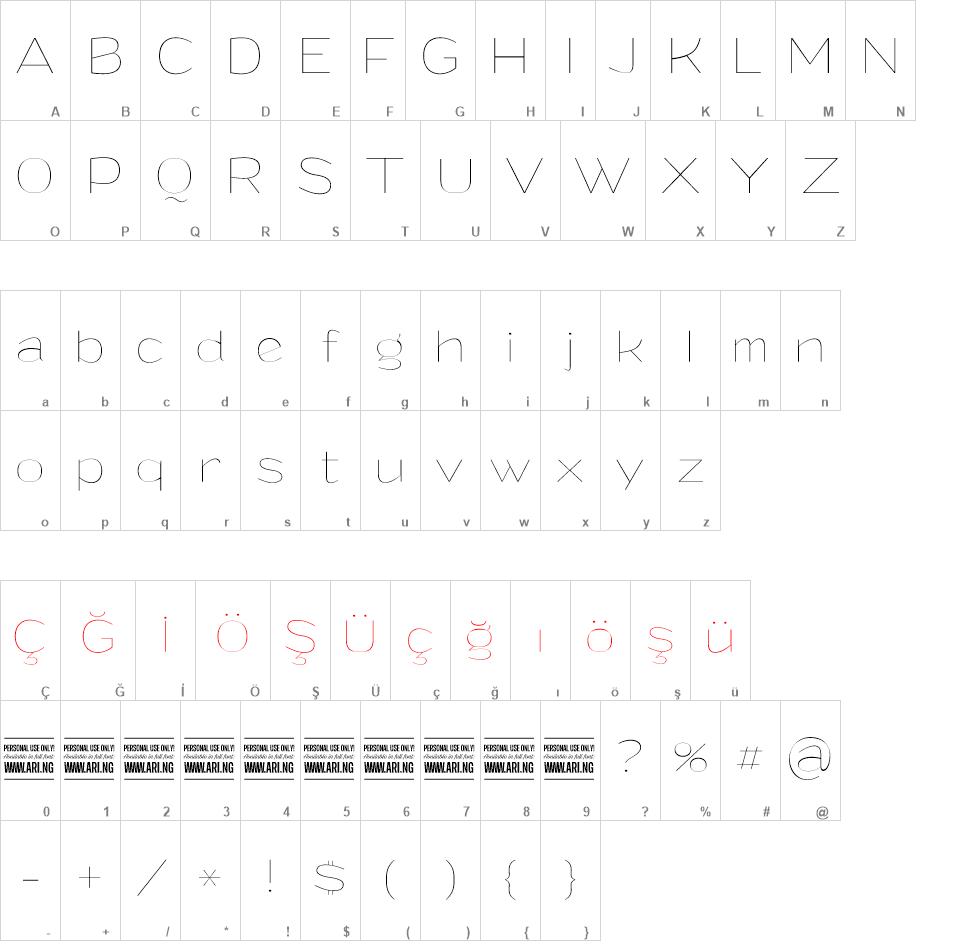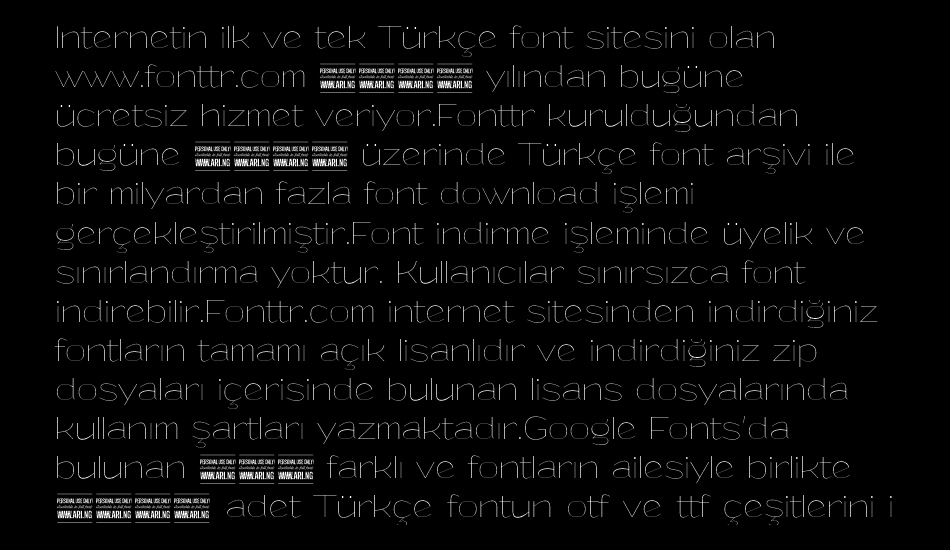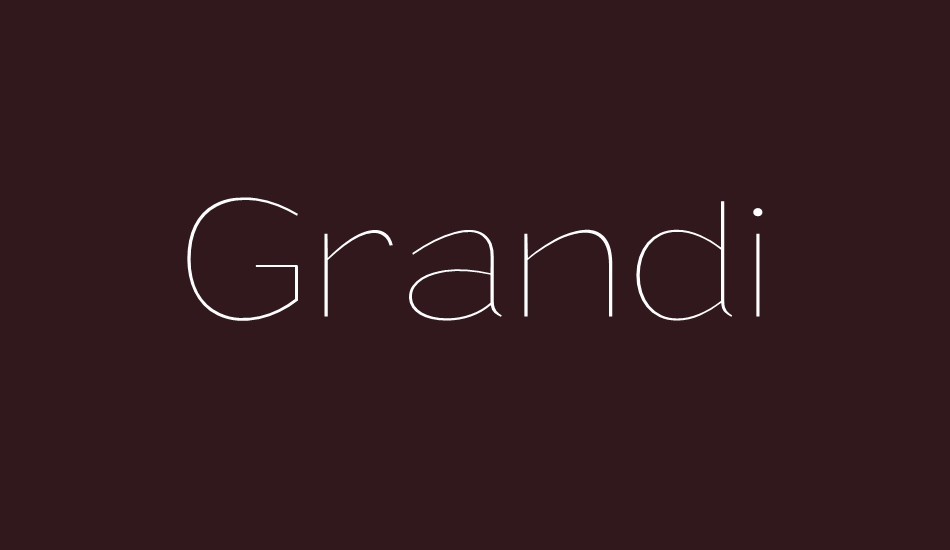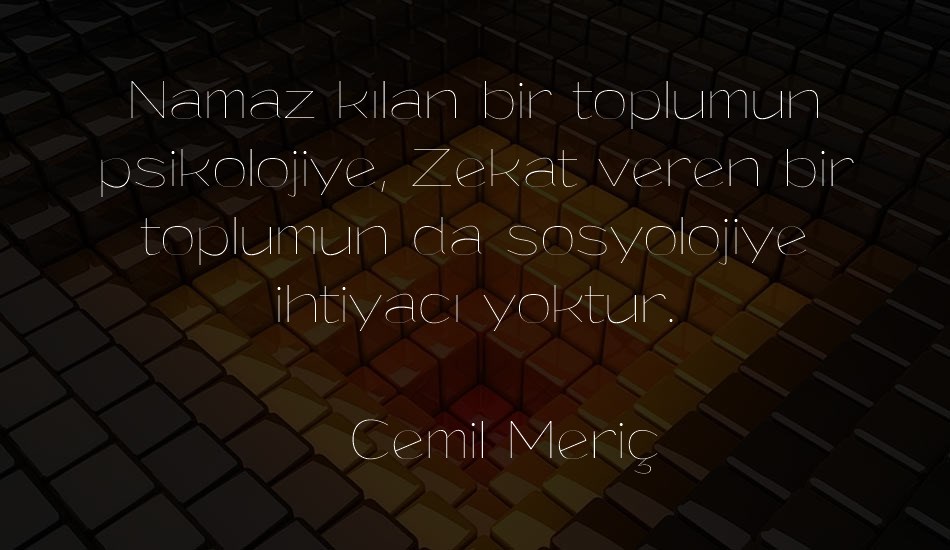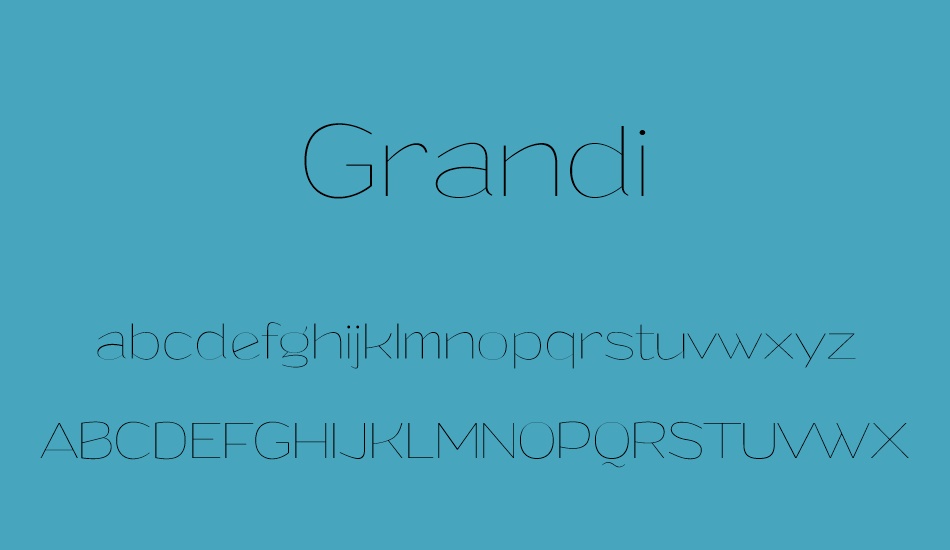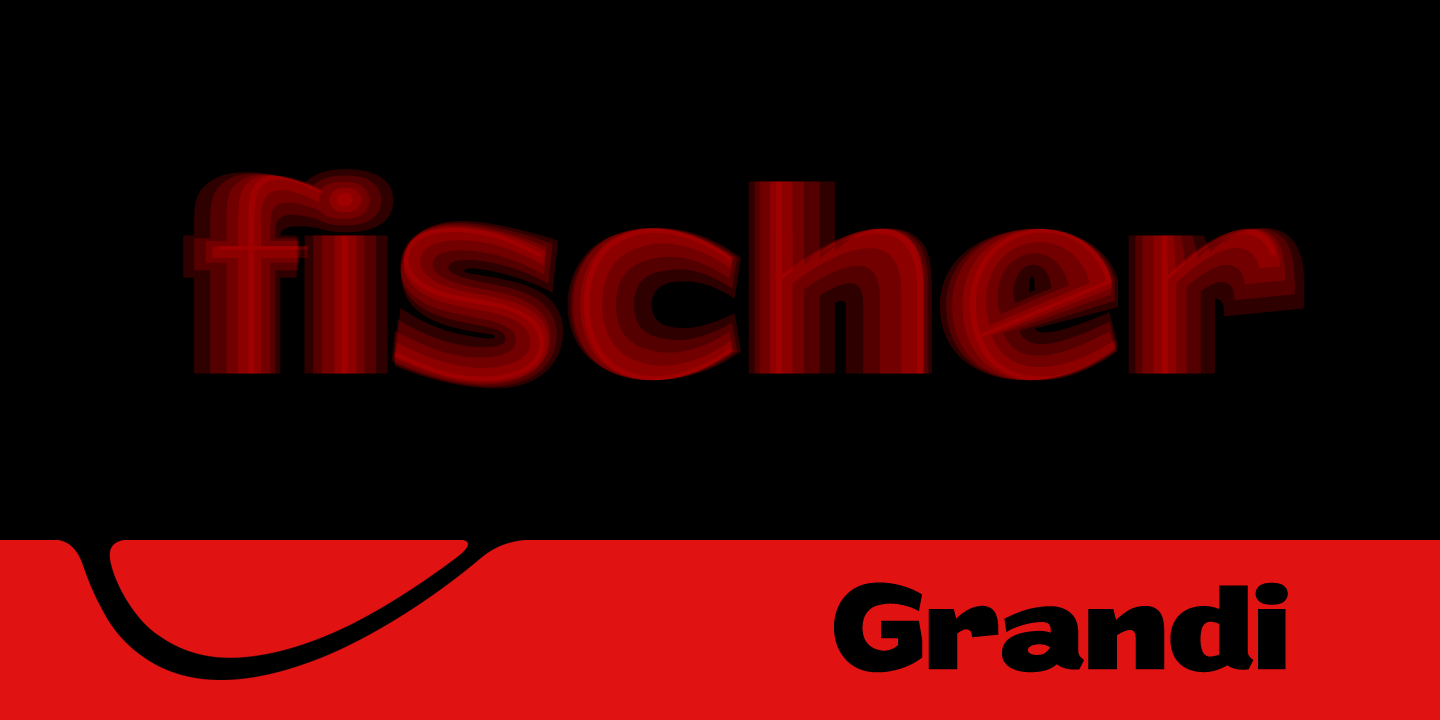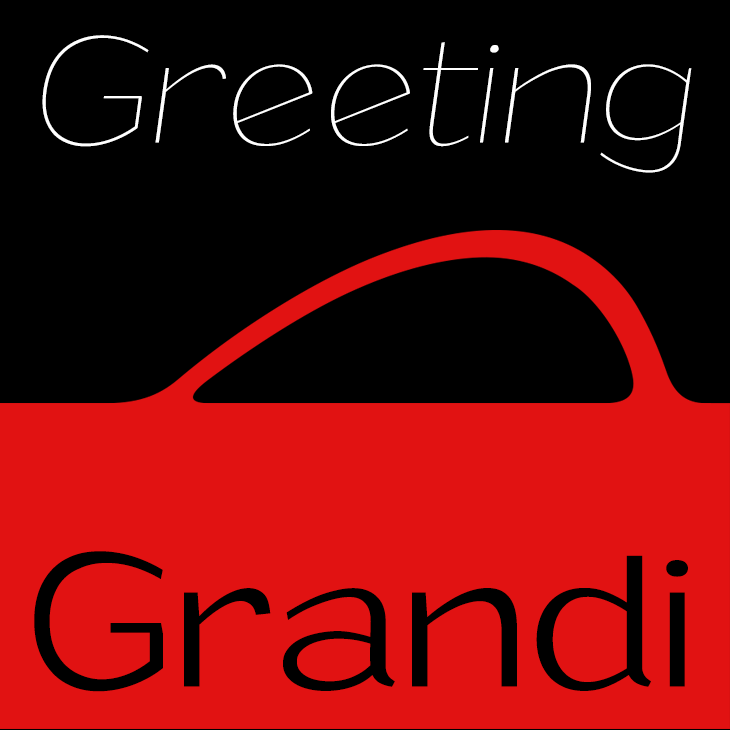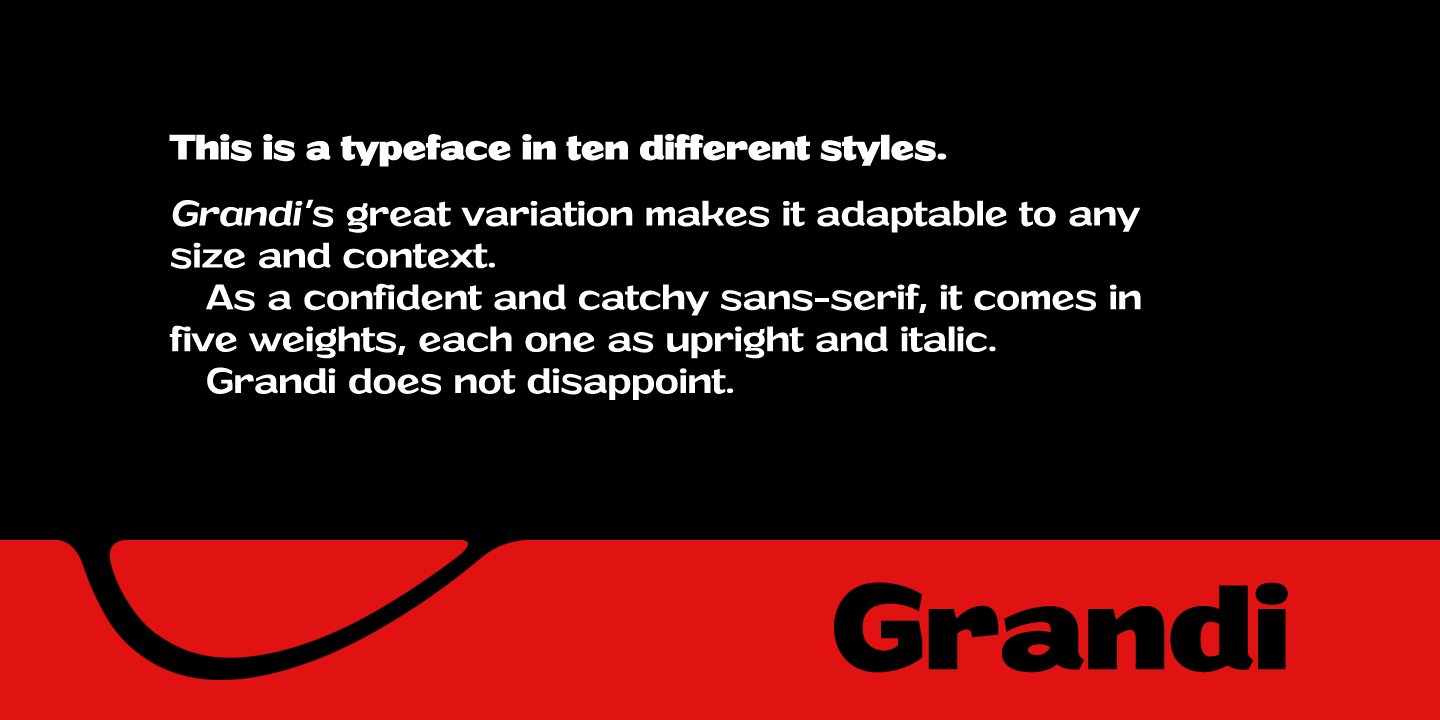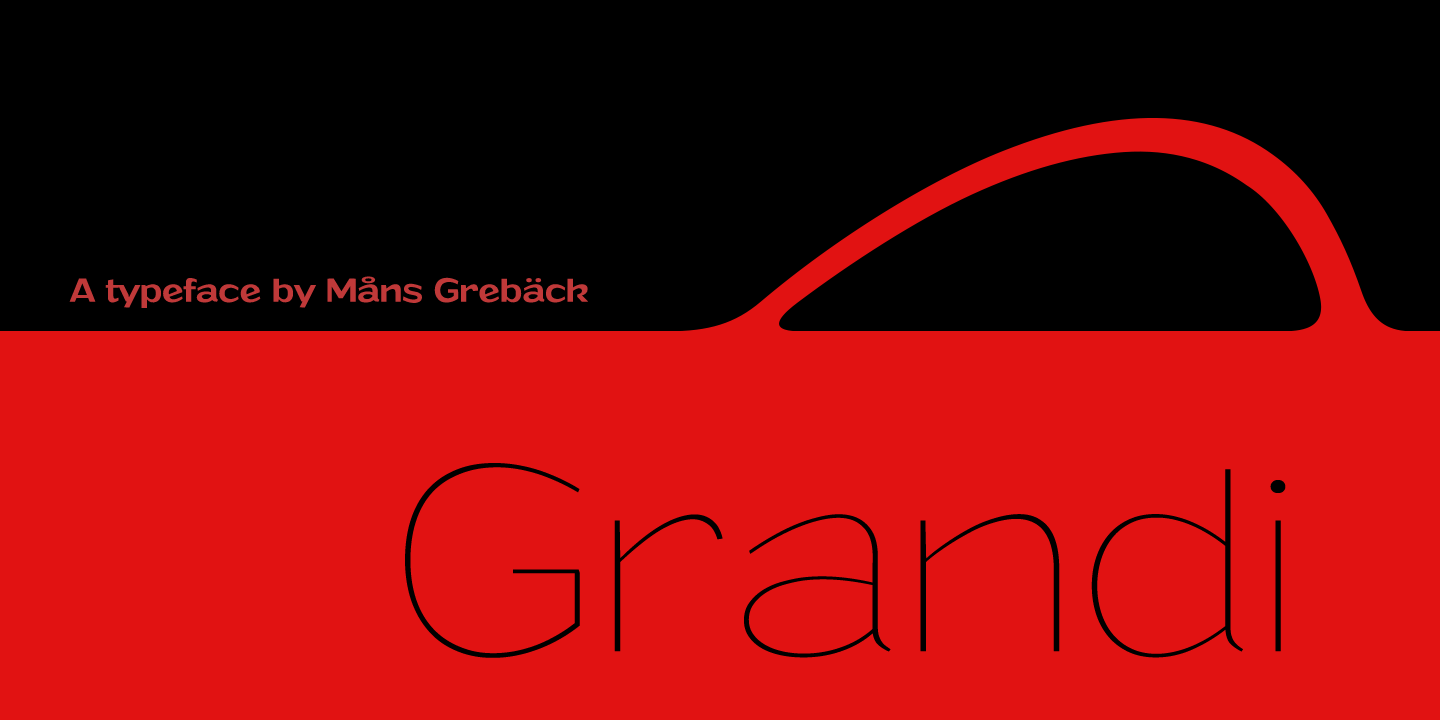
Grandi font
Grandi Font
Grandi is a sans-serif in ten different styles.
Carefully designed by M?ns Greb?ck, this typeface's great variation makes it adaptable to any size and context.
It is confident and catchy, and comes in five weights, each one as upright and italic.